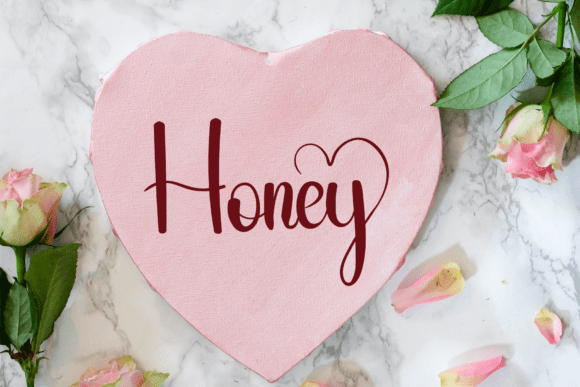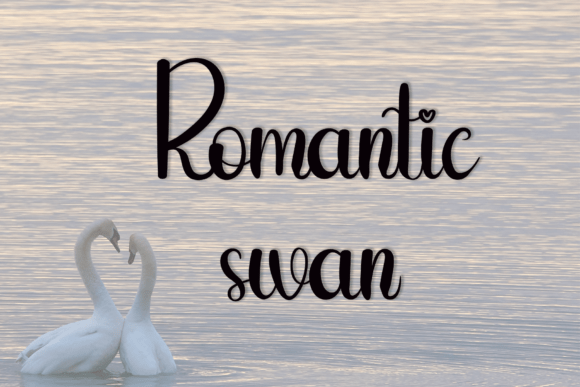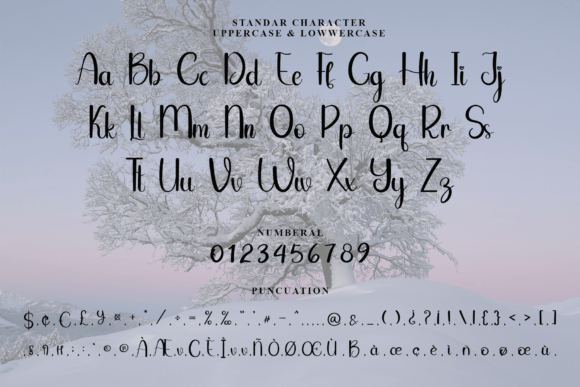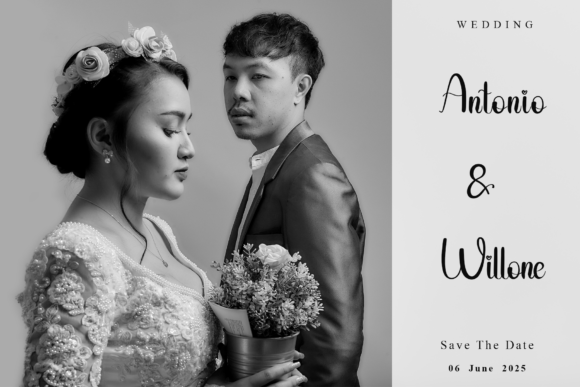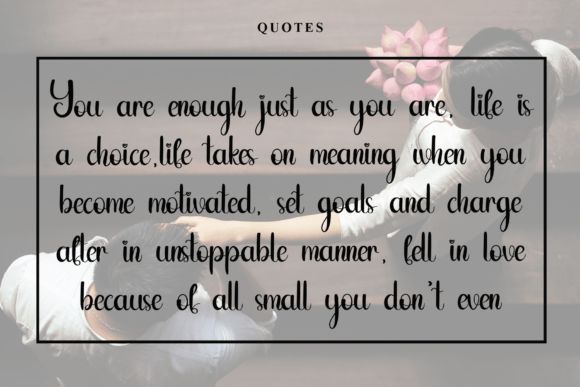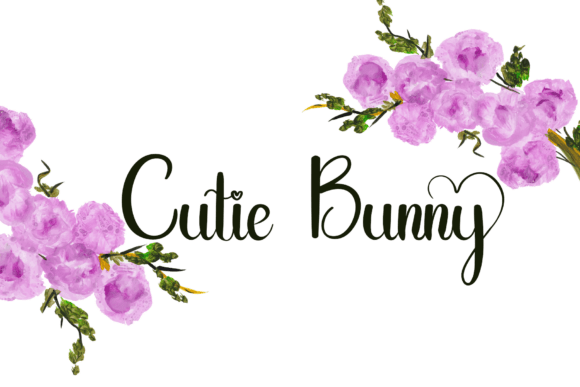
Introducing Funny Font: The Ultimate Choice for a Simple and Natural Feel
Are you tired of using the same old fonts for your designs and crafts? Look no further! Funny Font is here to revolutionize the way you create. This simple handwritten font is versatile, fun, and guaranteed to add a personal touch to your next project. Whether you’re designing greeting cards, headlines, or anything in between, Funny Font is the perfect choice.
The Characteristics of Funny Font
So, what makes Funny Font so special? Here are a few key characteristics that set it apart:
- Handwritten style: Funny Font has a charming, handwritten feel that’s perfect for creating a personal and informal vibe.
- Simple and natural: This font is designed to be easy to read and understand, making it perfect for a wide range of applications.
- Versatile: Funny Font can be used for everything from greeting cards and invitations to headlines and titles.
The Benefits of Using Funny Font
So, why should you choose Funny Font for your next project? Here are just a few benefits:
- Adds a personal touch: Funny Font is the perfect way to add a personal and human touch to your designs and crafts.
- Easy to read: This font is designed to be easy to read, even at small sizes.
- Great for a wide range of applications: Whether you’re designing for print or digital, Funny Font is a great choice.
- Perfect for crafters and designers: If you’re a crafter or designer looking for a unique and versatile font, Funny Font is a great choice.
Using Funny Font in Your Designs
So, how can you use Funny Font in your designs? Here are a few ideas to get you started:
- Greeting cards: Funny Font is perfect for creating personalized greeting cards for special occasions.
- Headlines and titles: This font is great for creating eye-catching headlines and titles for your designs.
- Invitations: Funny Font is a great choice for creating invitations for parties, weddings, and other special events.
- Social media graphics: This font is perfect for creating social media graphics that are fun, informal, and engaging.
Tips and Tricks for Working with Funny Font
Here are a few tips and tricks to help you get the most out of Funny Font:
- Experiment with different sizes: Funny Font looks great at a wide range of sizes, so don’t be afraid to experiment.
- Pair with other fonts: This font pairs well with a wide range of other fonts, so try pairing it with some of your favorites.
- Use it for emphasis: Funny Font is great for adding emphasis to your designs, so try using it to highlight important information.
In conclusion, Funny Font is a versatile and fun font that’s perfect for adding a simple and natural feel to your designs and crafts. With its handwritten style, simple and natural feel, and wide range of applications, this font is sure to become a favorite among designers and crafters. So why not give it a try and see what you can create?